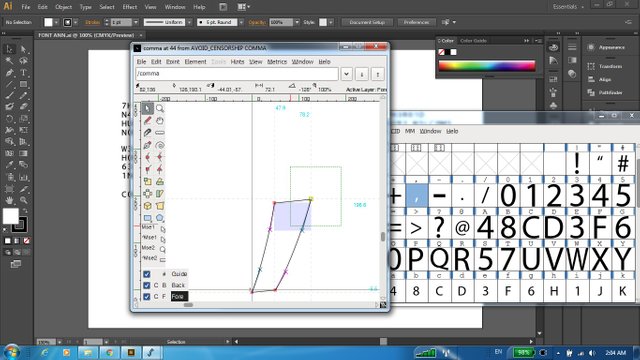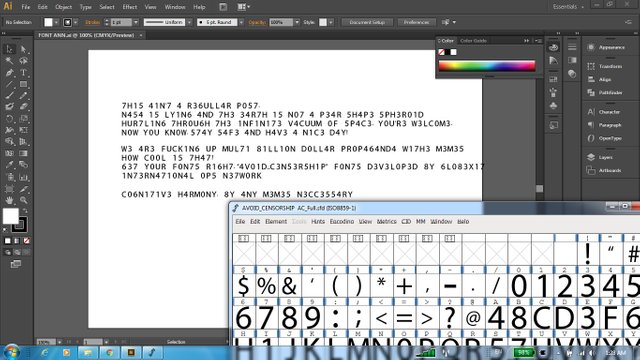
A meme and a Font
This is the 1st version of the "Letters_And_Numbers Font", developed by Globexit International Ops Network. Nothing out of the ordinary; I have seen people writing this way before. Here's is the result of my learning experience in creating custom fonts with FontForge and the link with the video that inspired me:
It took me one day to create this one and I have spent another day to do some fine tuning for the glyph's size and position in relation to the letters.